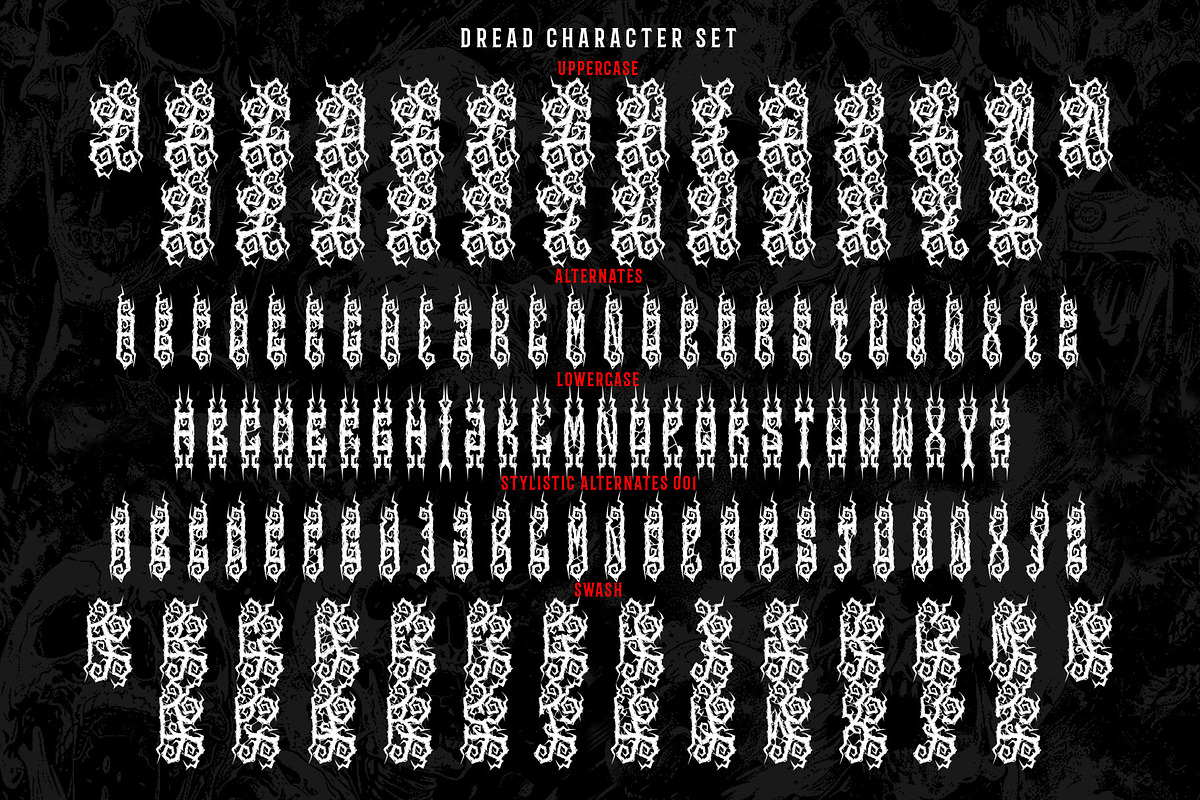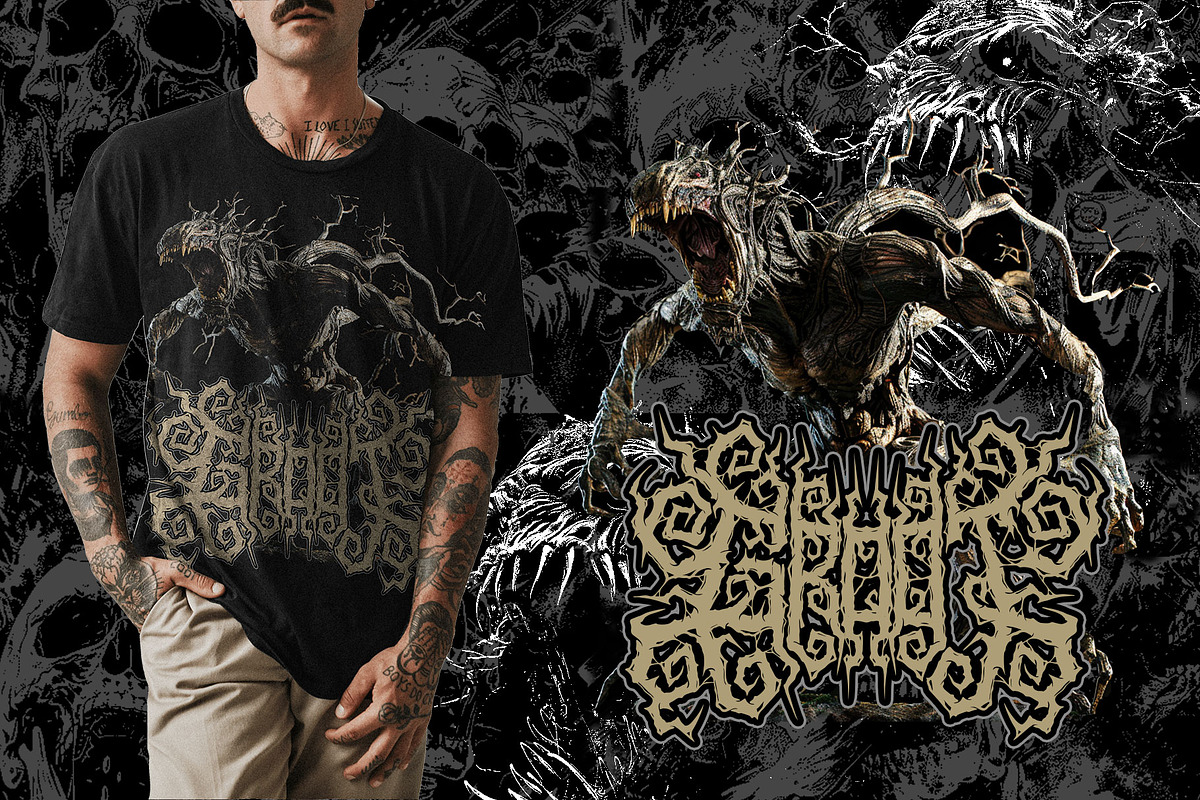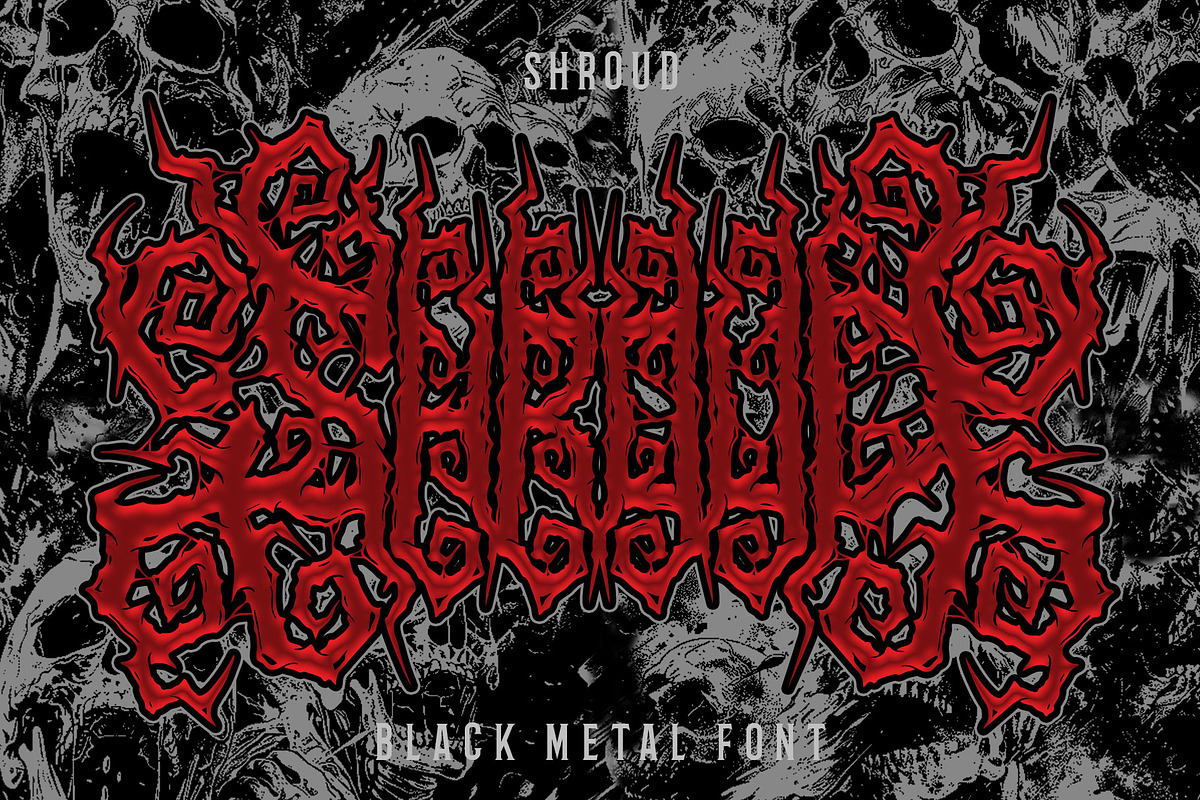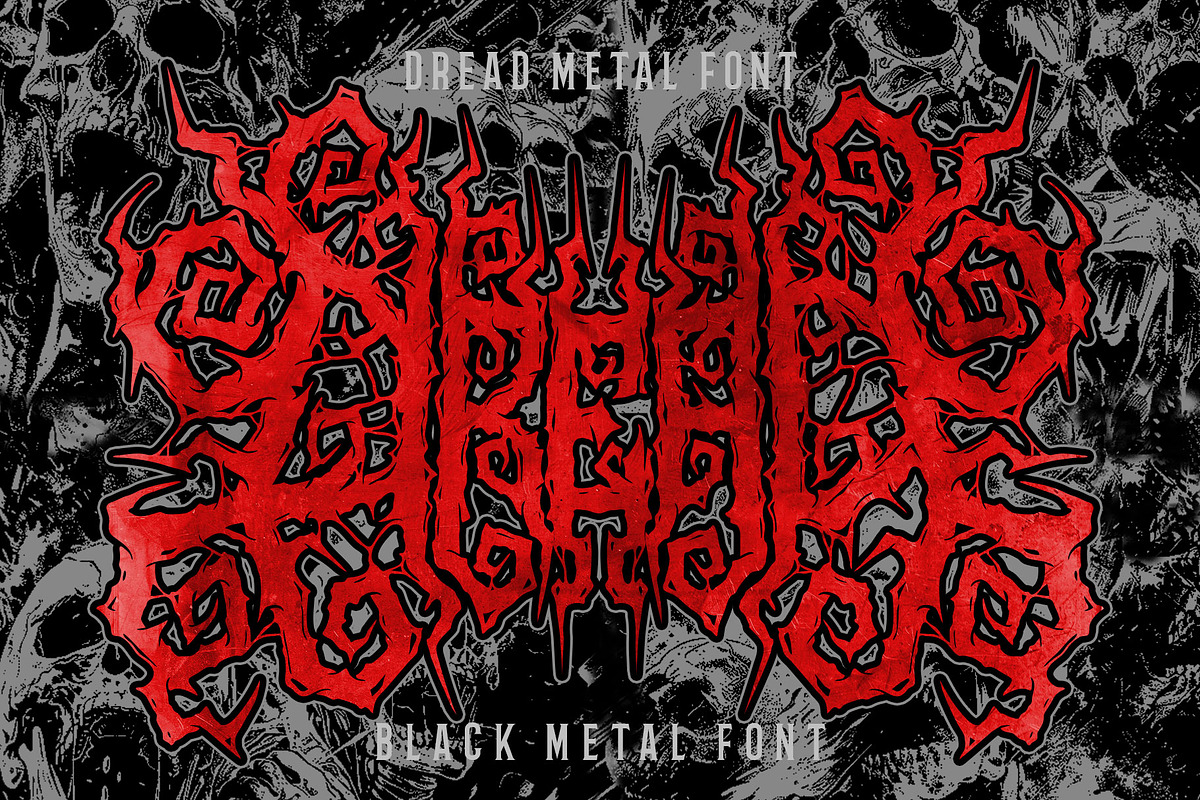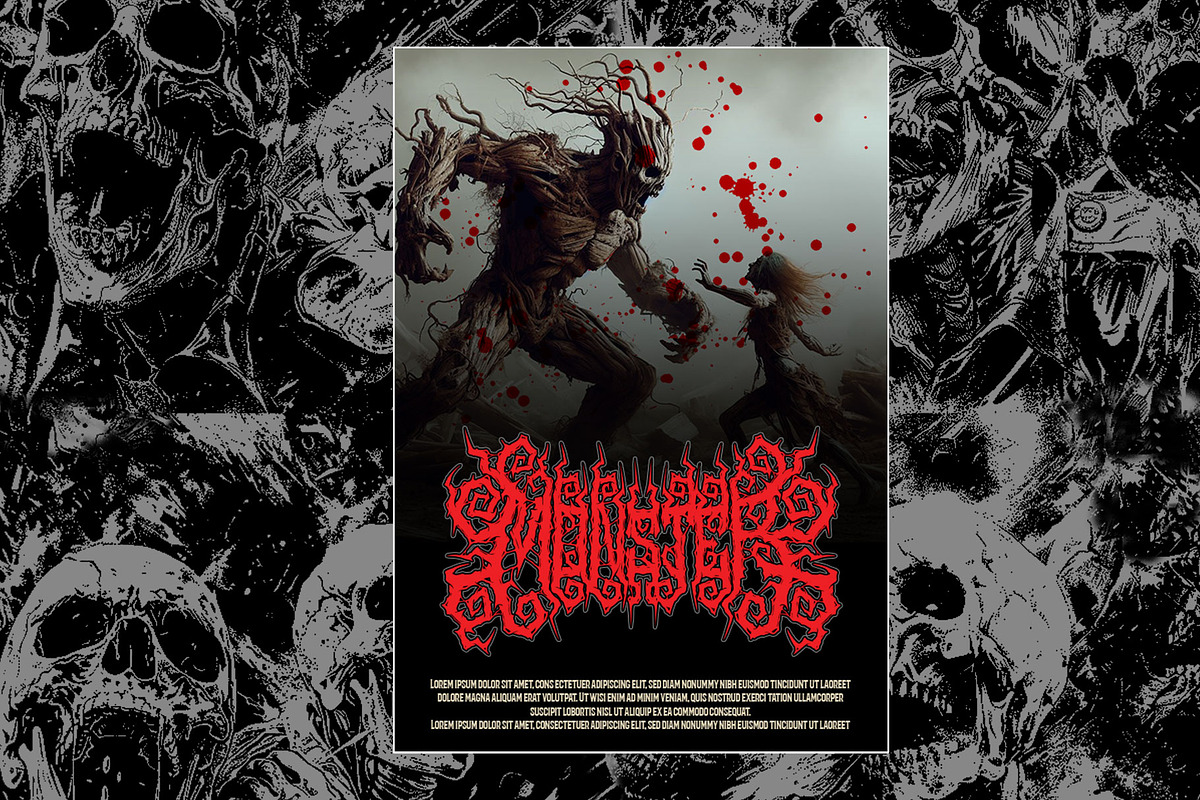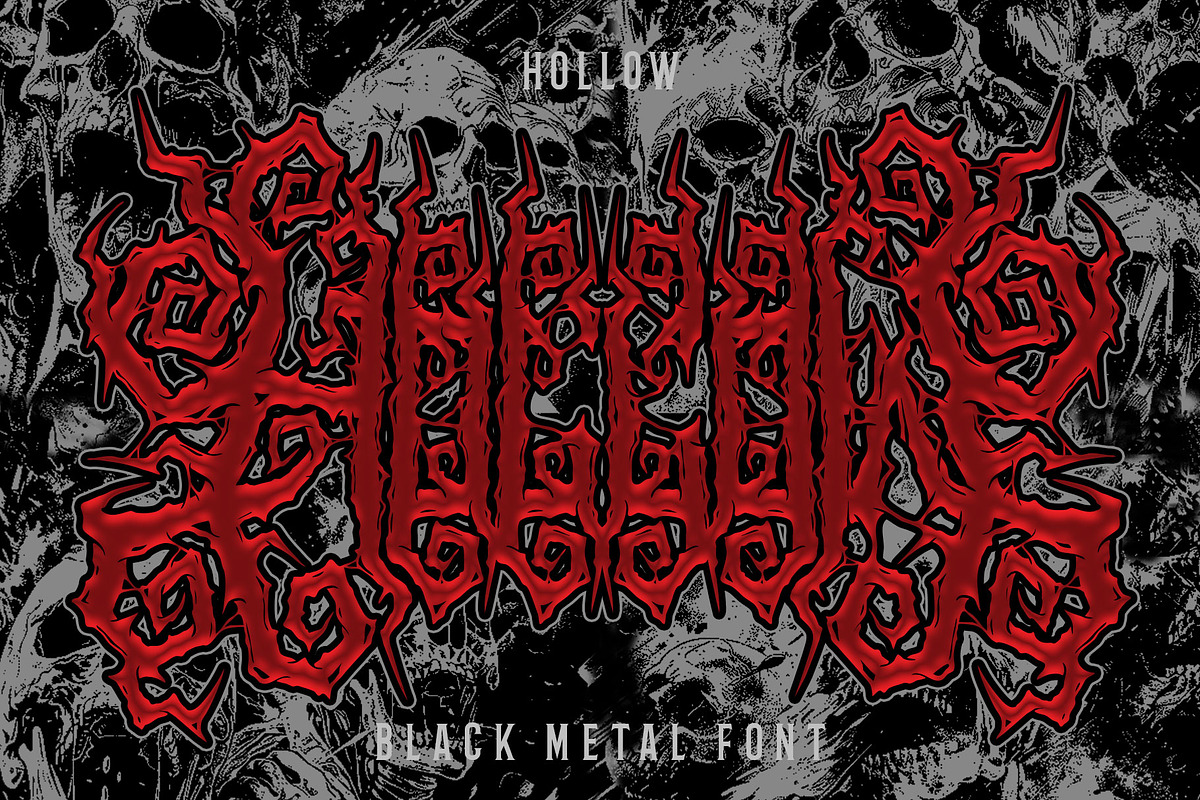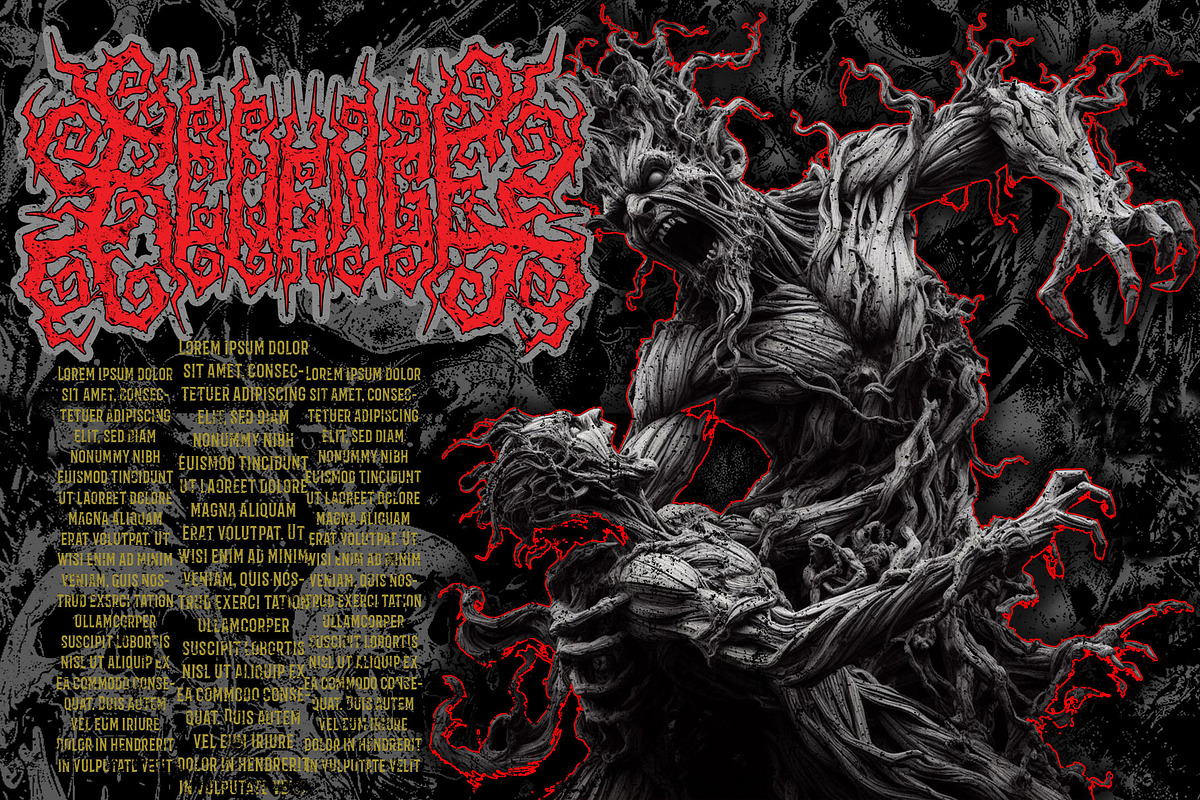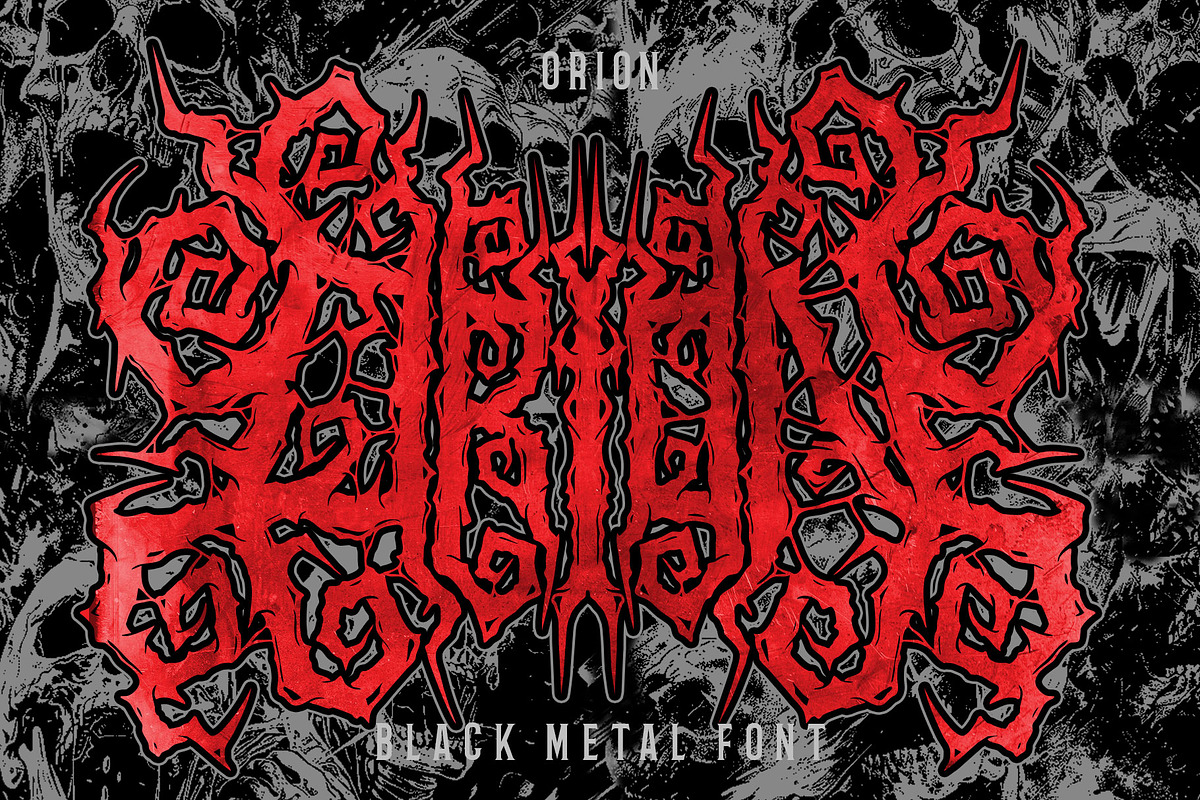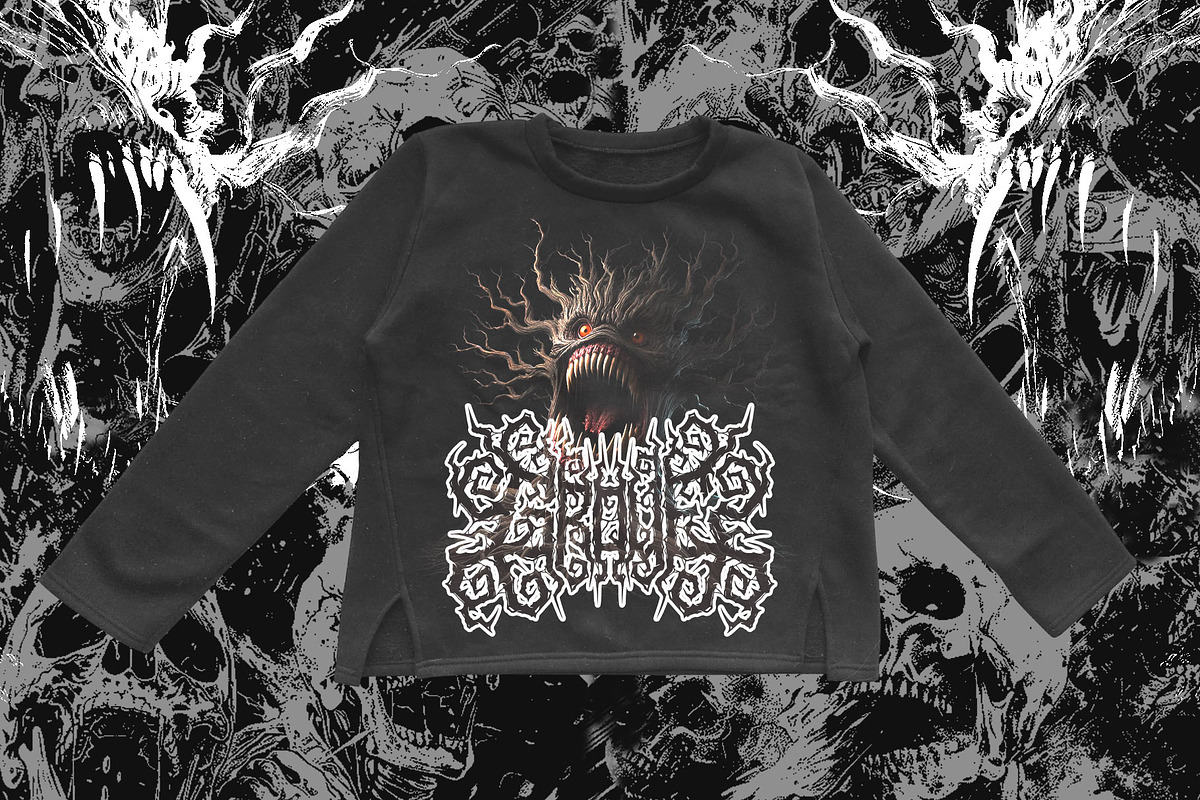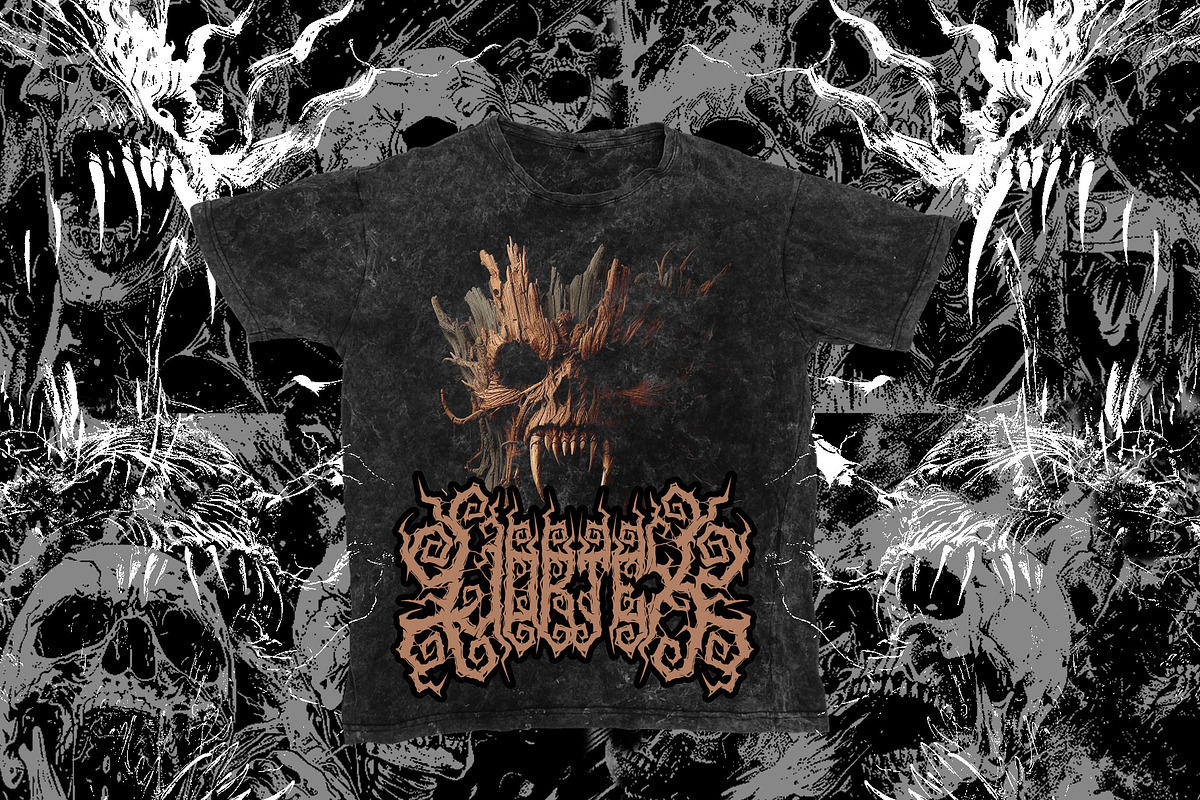
Dread Death Metal Font
🤘 Introducing Dread Death Metal Font: Unleash Fearless Design with Unrivaled Precision! 🤘
Prepare to ignite the stage with the meticulously crafted “Dread Death Metal Font.” More than a font, it’s a testament to detail, uncompromising quality, and exclusivity.
🔥 Precision That Strikes Fear: Each line in Dread is meticulously honed, embodying the raw energy and razor-sharp precision demanded by the metal genre. It sets a new standard for high-quality design.
- All Caps Character
- Stylistic Alternate